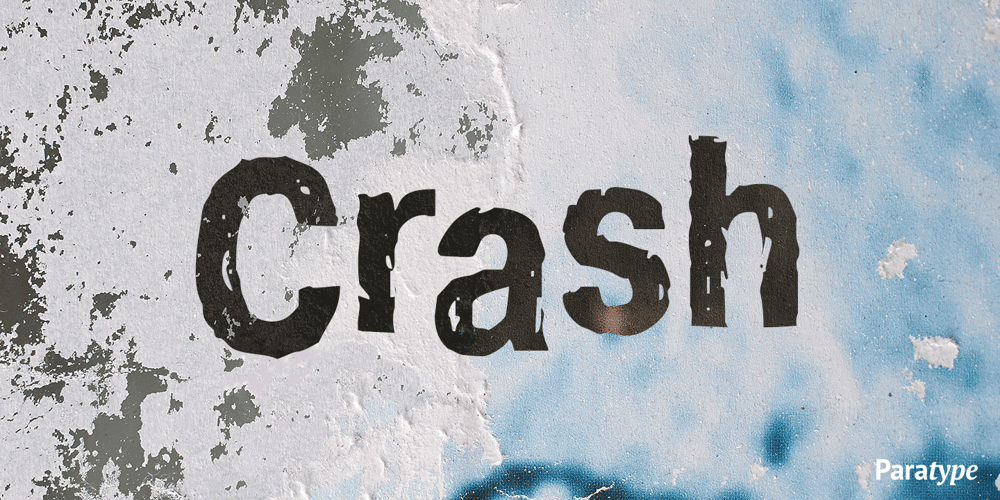
Crash
Crash font
Crash Font Family was designed by Alexander Tarbeev and published by ParaType. Crash contains 1 styles and family package options. Developed at ParaType in 1995 by Alexander Tarbeev, based on Pragmatica, 1989, by Vladimir Yefimov. For use in advertising and display typography.